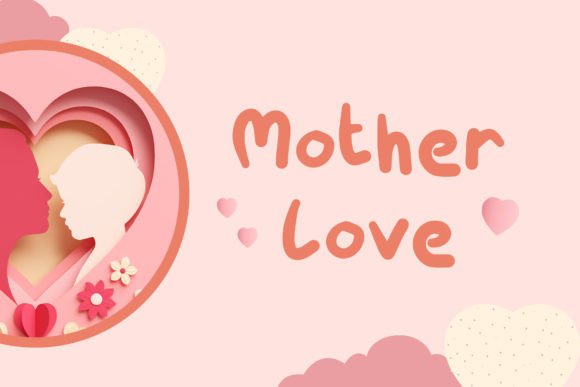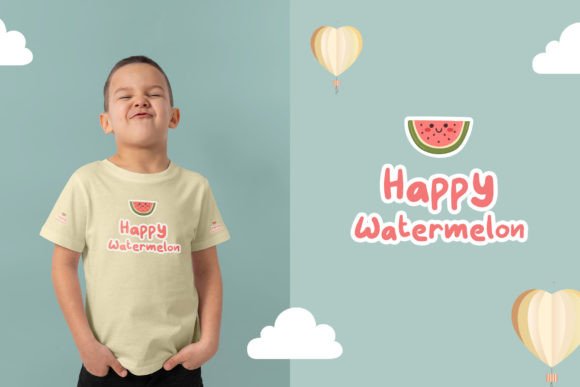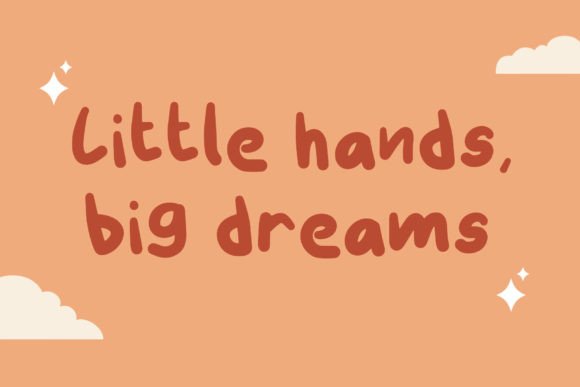
Introduction to Lopiyu Font
As a designer, there’s nothing quite like the thrill of bringing a new project to life. The blank page stares back at you, waiting for your creative spark to ignite. And then, it happens – a burst of inspiration, a dash of imagination, and suddenly, your vision starts to take shape. For those of us who create content for children, finding the perfect design resource can be a game-changer. That’s where the delightful Lopiyu Font comes in.
With its playful design and whimsical charm, Lopiyu Font is the perfect addition to any high-quality design project. Its vibrant colors and rounded edges create an inviting aesthetic, making it an ideal choice for kids’ projects. Whether you’re working on a free download or a commercial design, Lopiyu Font is sure to add a touch of joy and creativity to your work.
Key Features of Lopiyu Font
- High-quality design resource with a unique, creative style perfect for various projects.
- Features a transparent background, allowing for seamless integration with any design or creative project.
- Designed with precision, offering a high-resolution font suitable for both digital and print media.
- Includes a wide range of characters, including uppercase and lowercase letters, numbers, and special symbols.
- Supports various font sizes and styles, making it a versatile design resource for creative projects.
Honest Review: Lopiyu Font
I recently had the chance to work with the Lopiyu Font, and I must say it’s a fantastic addition to any designer’s toolkit. The Lopiyu Font is a high-quality design resource that offers a unique and creative flair to any project.
- ✨ High-quality design: The Lopiyu Font features a transparent background, allowing for seamless integration with any design element.
- ✨ Versatile: This font can be used for a wide range of creative projects, from digital art to print materials.
While the Lopiyu Font excels in many areas, there are a few limitations to consider.
- ⚠️ Limited customization options: The font is designed to be used as is, with limited opportunities for customization.
- ⚠️ Not suitable for complex typography: The Lopiyu Font is best used for simple, bold typography, rather than complex text-based designs.
Overall, I’m impressed with the Lopiyu Font and would recommend it to designers looking for a high-quality, creative solution for their next project.
Tips for Getting the Most Out of Lopiyu Font
For the best results, use the Lopiyu Font in combination with other design resources, such as images and graphics. You can also experiment with different font sizes and colors to create unique and creative designs.
Common Use Cases for Lopiyu Font
The Lopiyu Font is ideal for use in a variety of creative projects, including branding, advertising, and editorial design. Its high-quality design and transparent background make it perfect for use in logos, business cards, and other promotional materials.